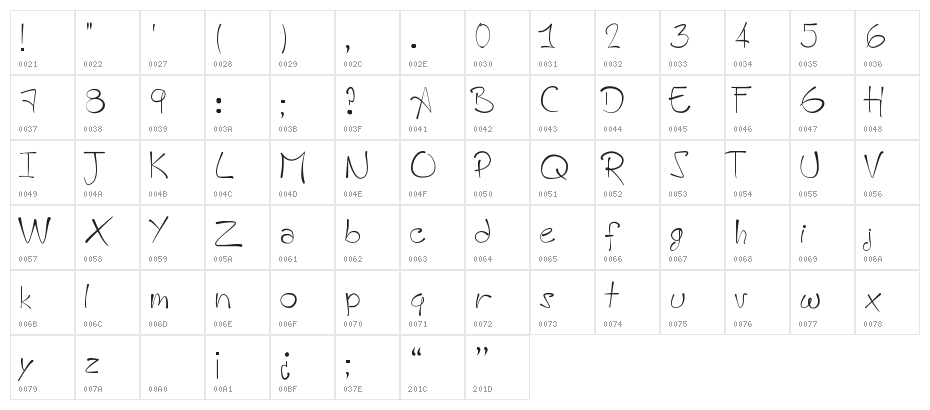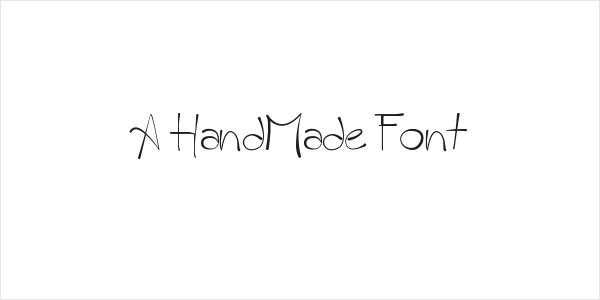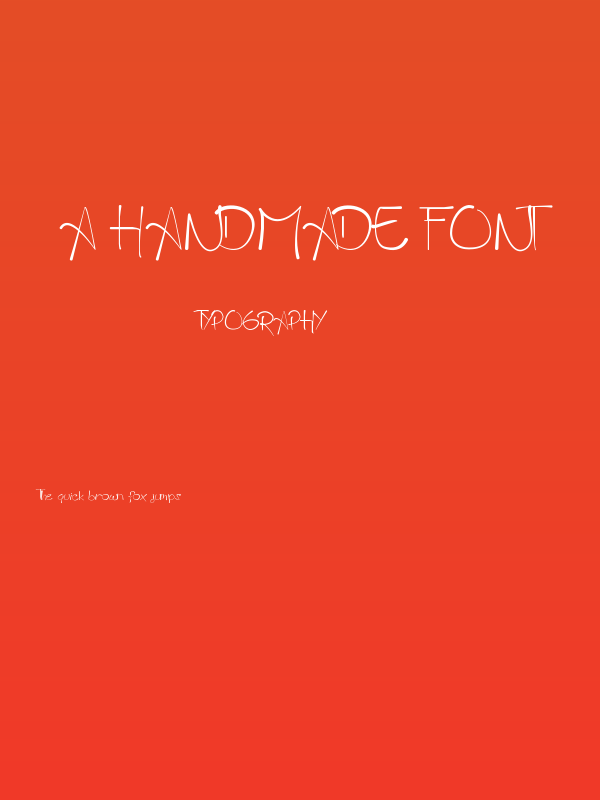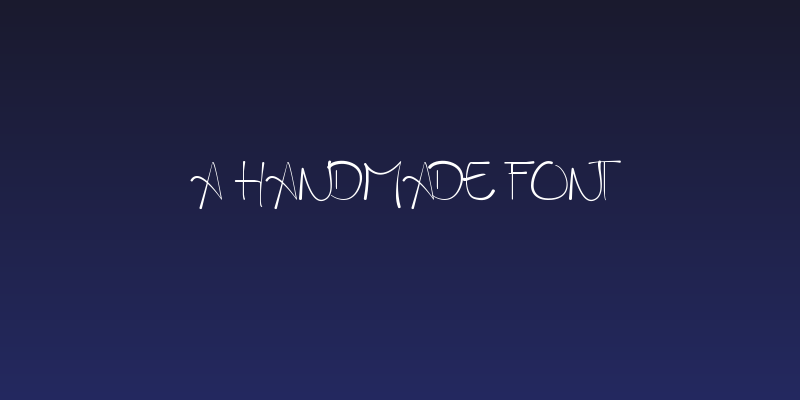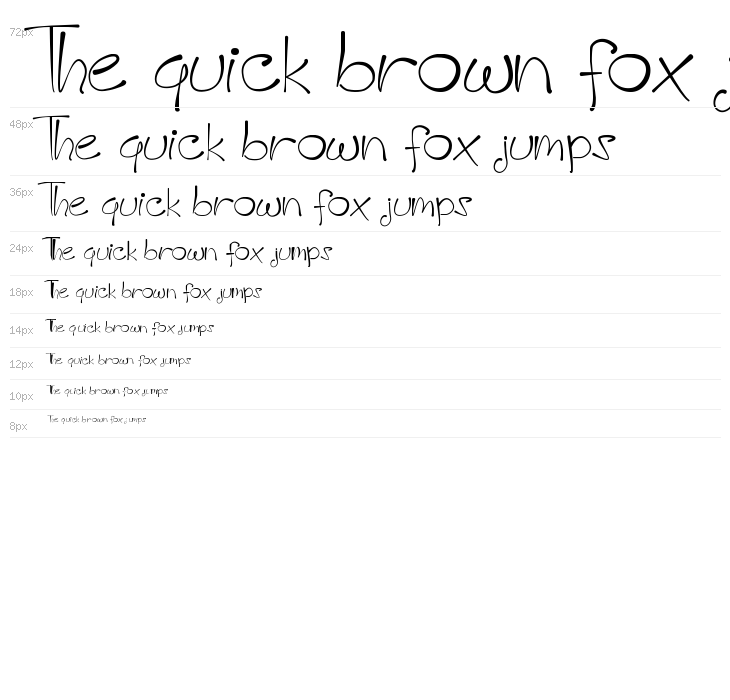
A HandMade Font Font
A HandMade Font Description
This font exhibits a playful and whimsical handwritten style, characterized by its irregular strokes and casual appearance. The letters are crafted with a sense of spontaneity, giving them a lively and dynamic feel. The uppercase and lowercase letters maintain a consistent flow, while the numerals and special characters complement the overall aesthetic. The strokes vary in thickness, adding a touch of personality and charm to the design. This font is perfect for projects that require a personal and informal touch, such as greeting cards, invitations, or creative branding.
| Use Case | Logos, Headlines, Informal text |
| Proposed Projects | Ideal for greeting cards, invitations, creative branding, and informal designs. |